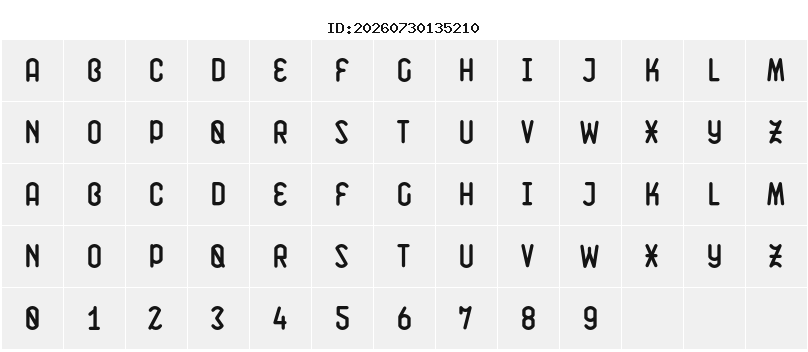
K141 Preview
• Font Name: K141
• Designer: Jorge Dias
About K141.otf
K141.otf is a modern, elegant sans-serif font designed for ultimate readability and visual harmony. Perfect for branding, headlines, web design, and print materials.